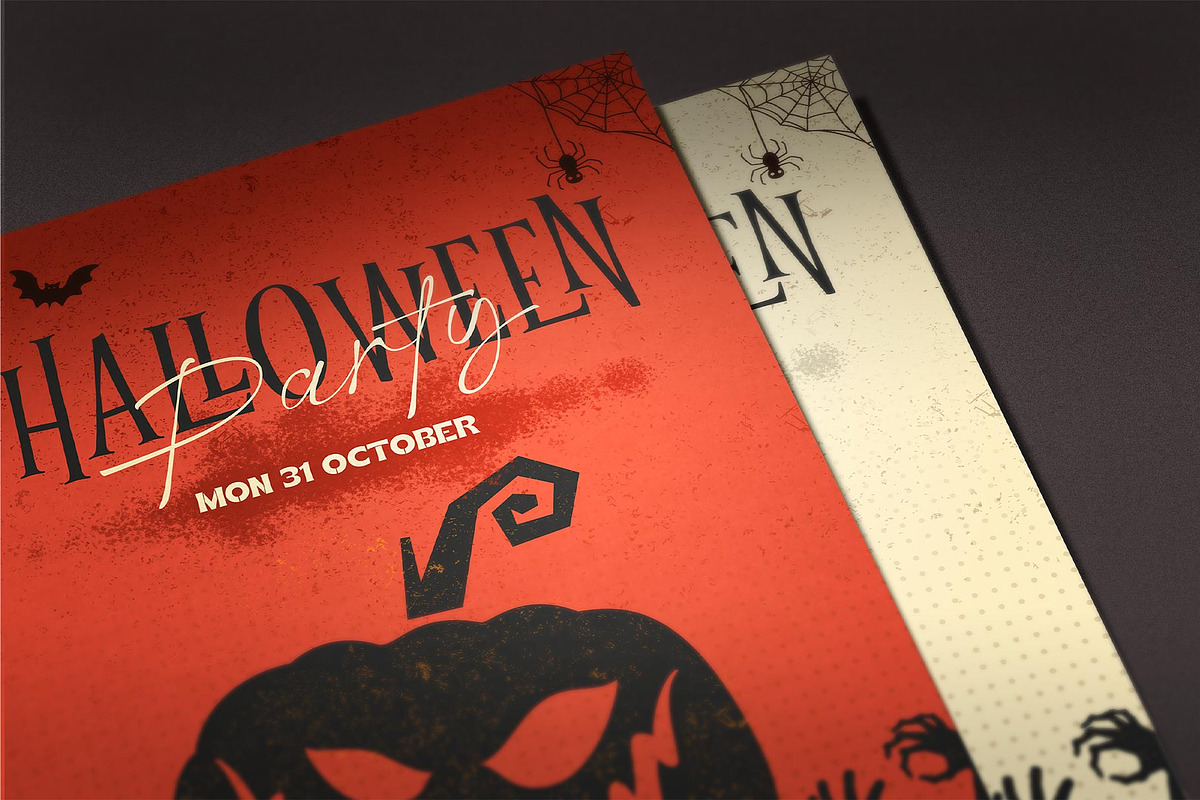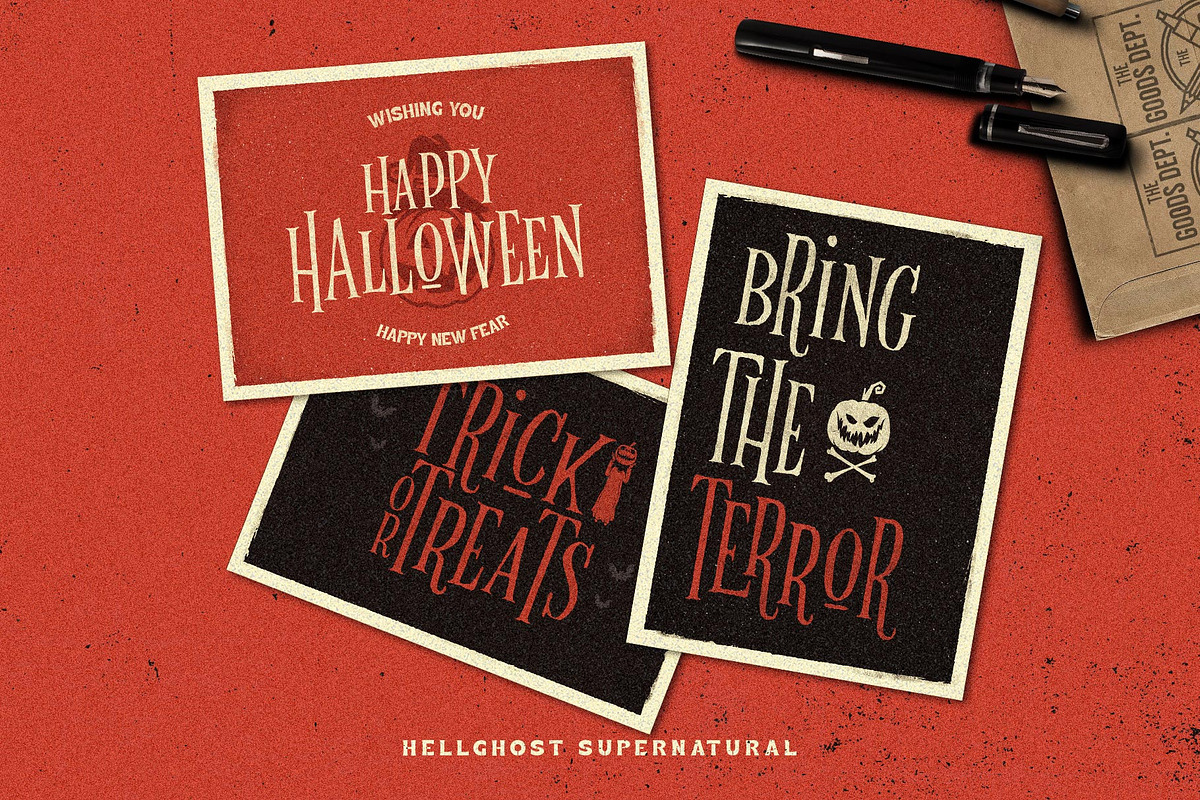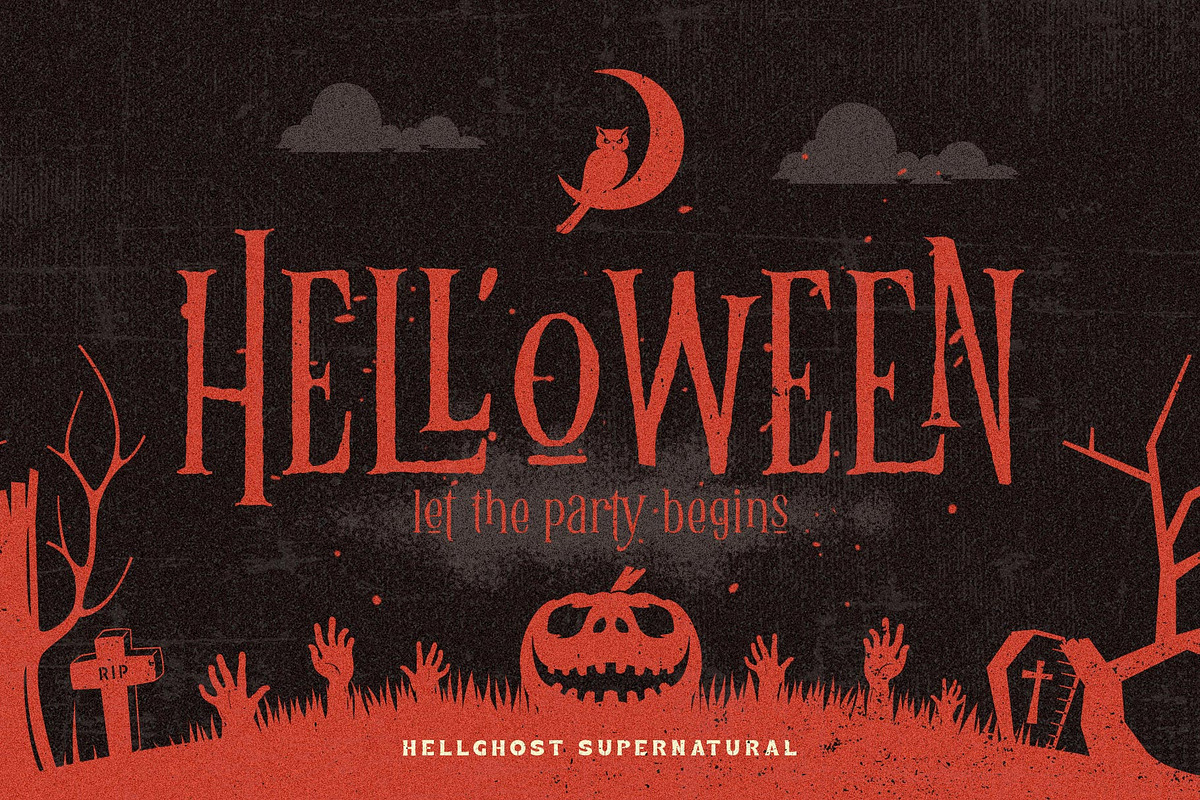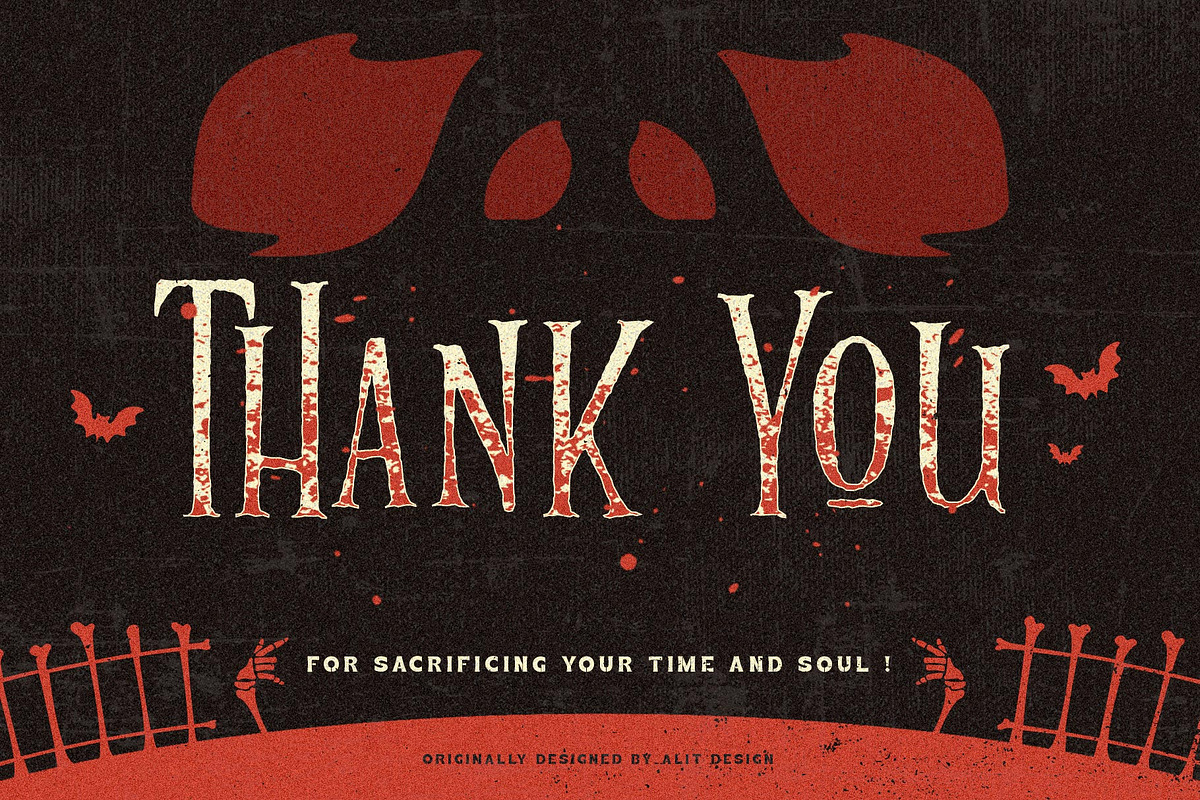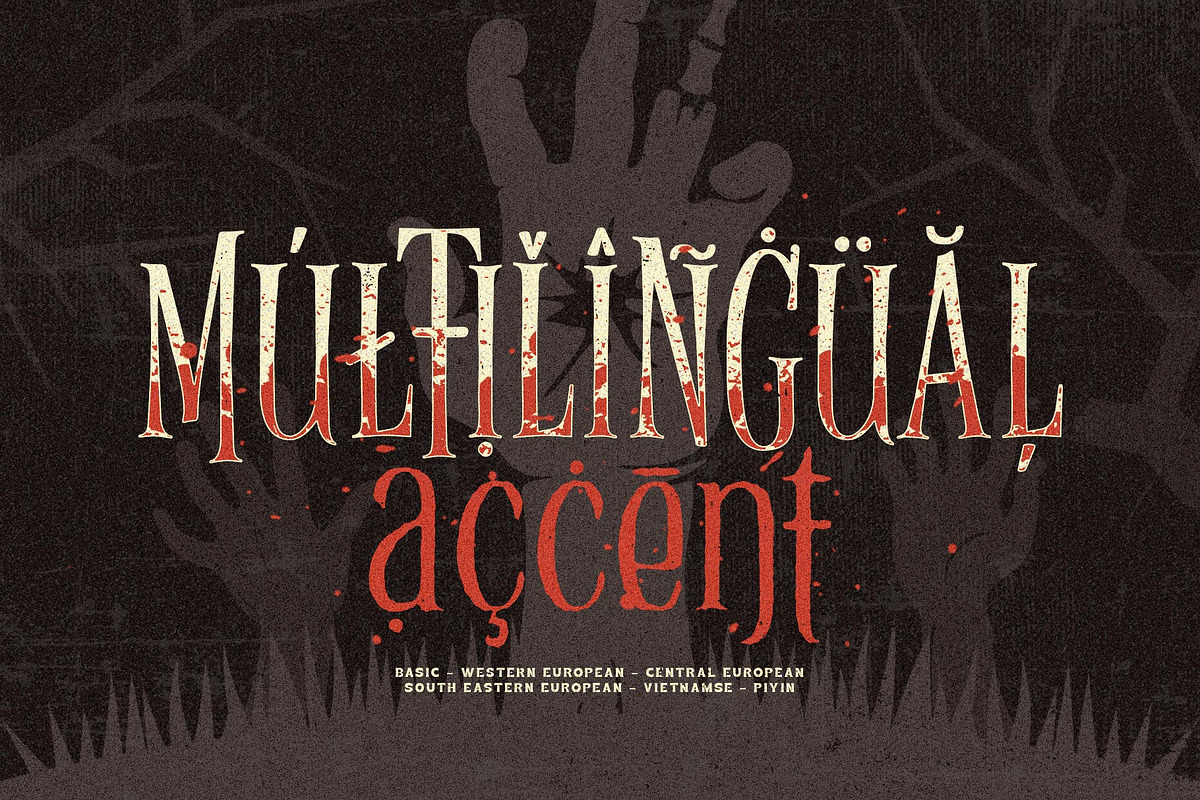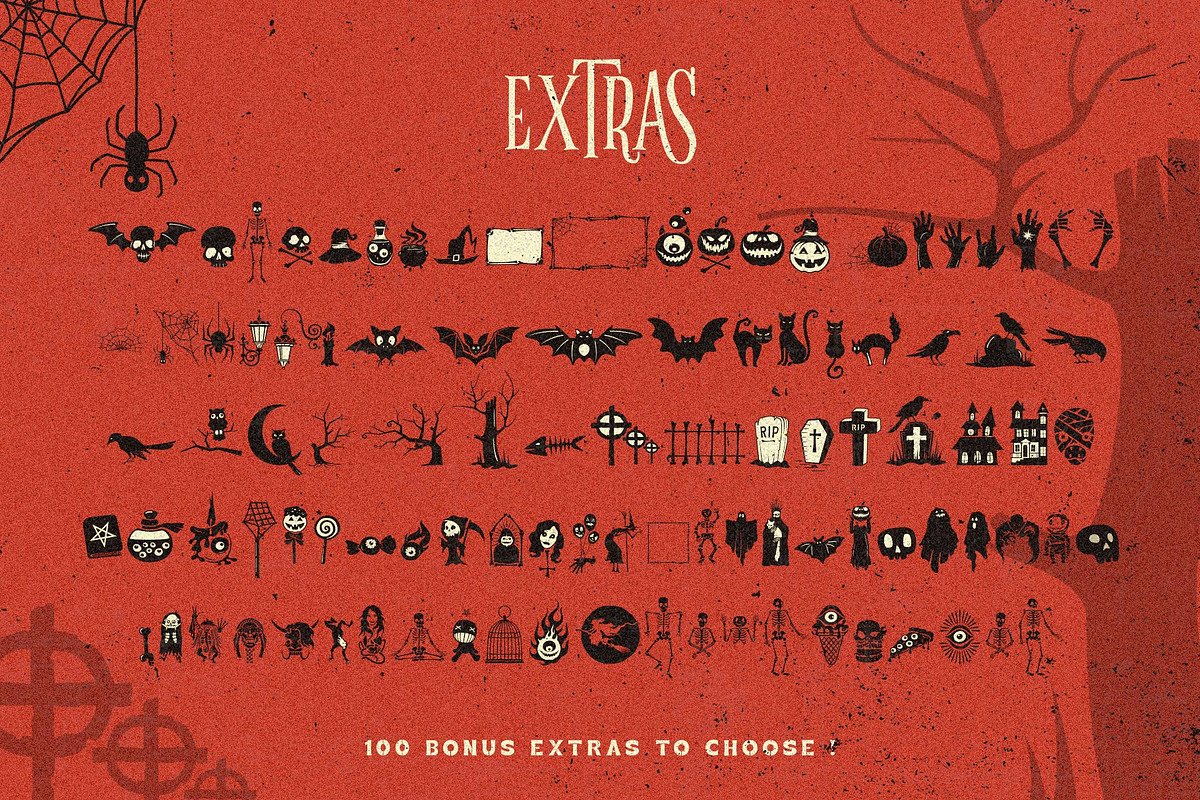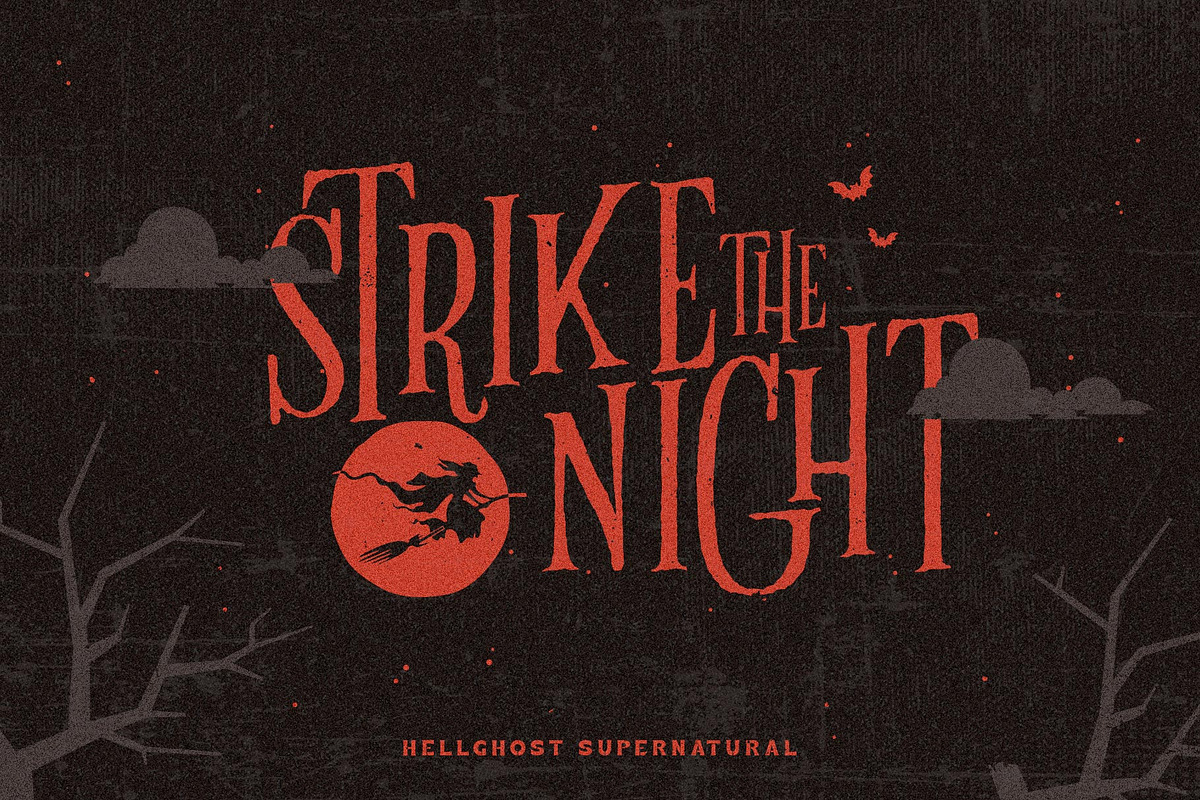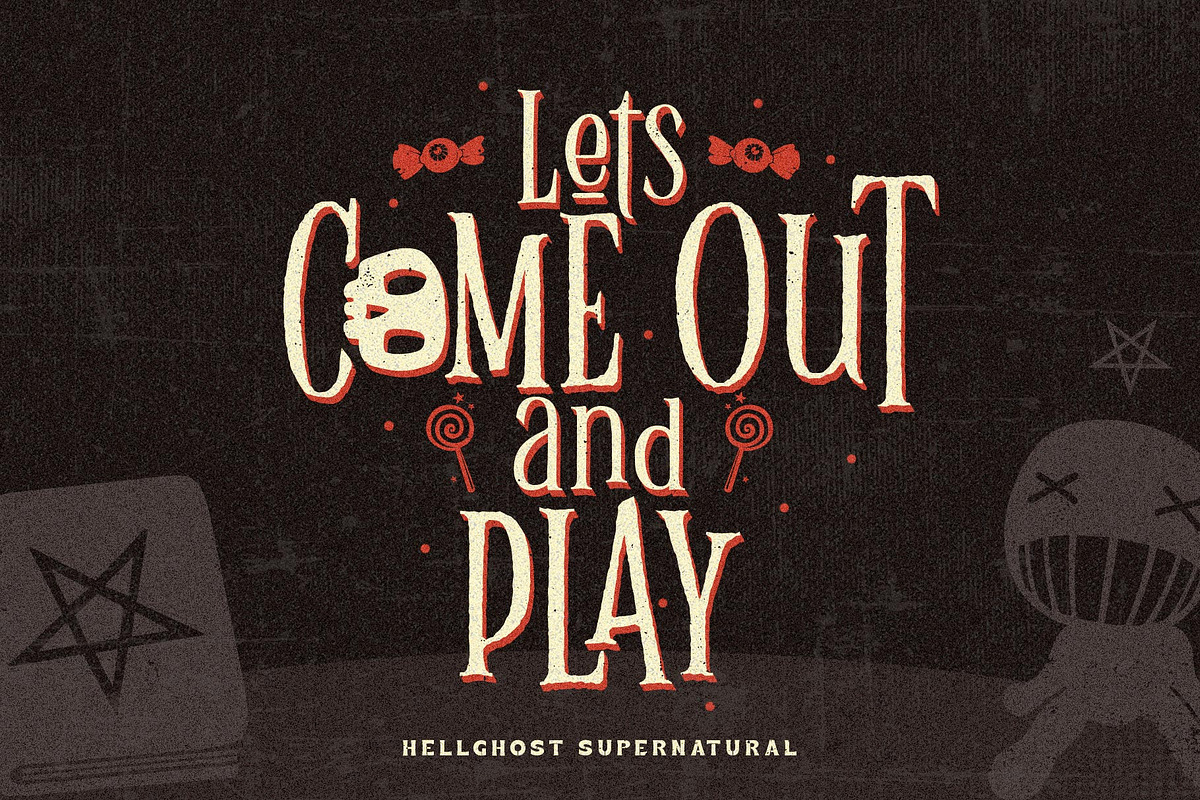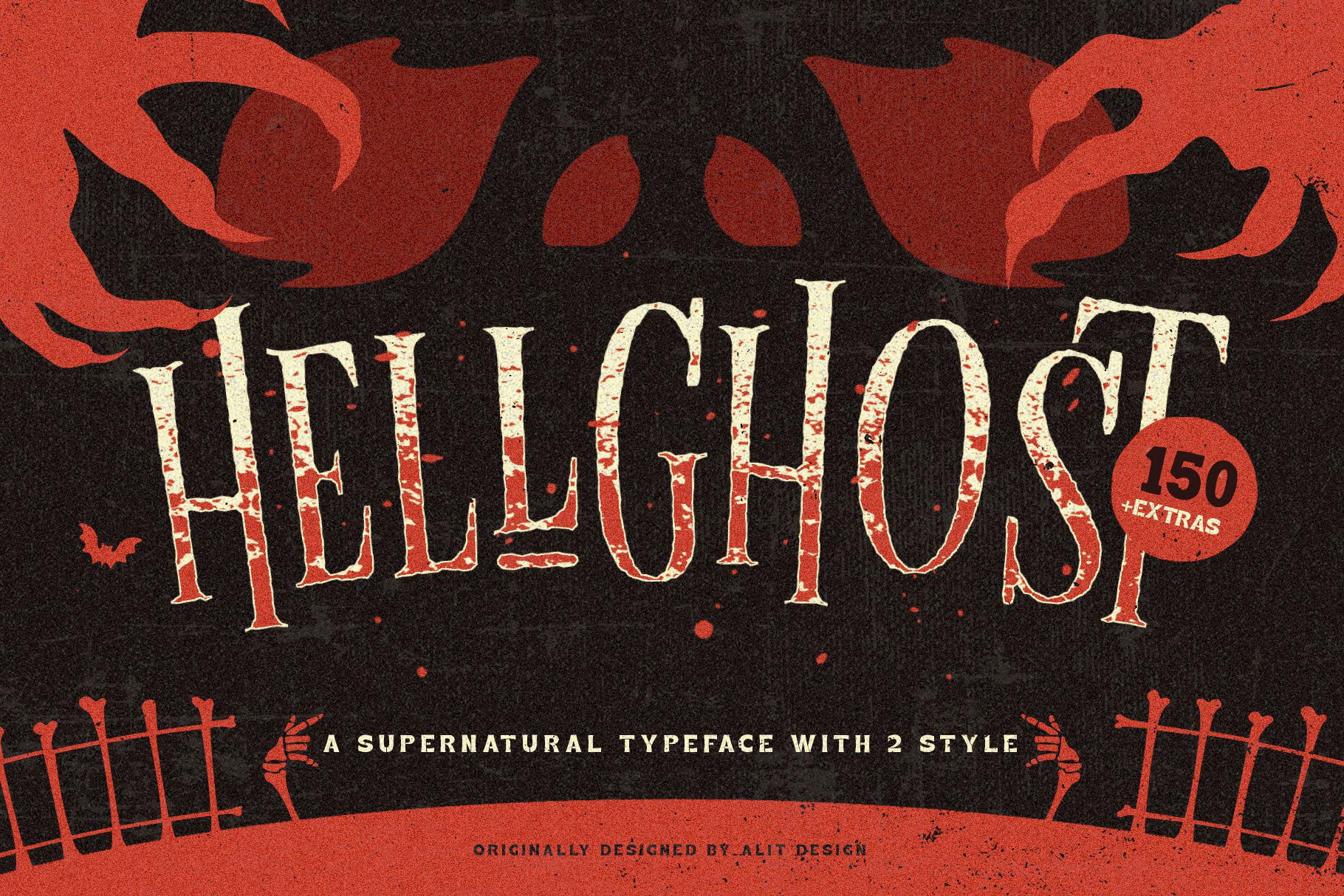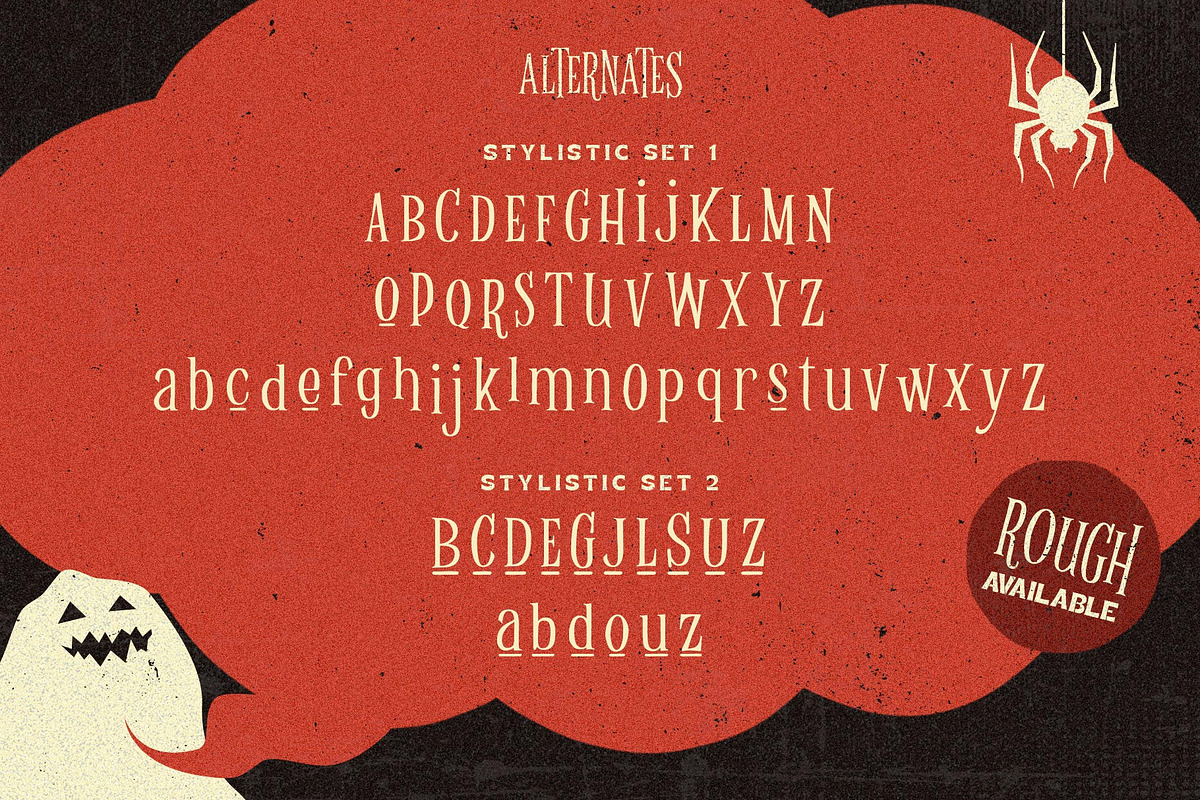
Hellghost Typeface
Presenting the 🎃 Hellghost Typeface 🦇 by alitdesign.
Hellghost typeface is designed for the needs of design concepts themed about Halloween and events in October and November. The Hellghost font uses a serif font style that varies by distorting its shape randomly but still looks good to look at and makes the designs it creates look bold and unique. In addition to the standard type, Helloghost also has a rough version which makes the design look more rusty and suitable for the Halloween concept.
The Helloghost font also gets a bonus character of 150 Halloween-themed illustrations that make creating designs even easier. Simply by downloading the Helloghost font, creating a Halloween themed design is very quick and easy.
The Hellghost Typeface is perfect for magazine cover designs, brochures, flyers. Instagram ads, Canva Design and so on with halloween and dark concepts. besides that this font is very easy to use both in design and non-design programs because everything changes and glyphs are supported by Unicode (PUA).
The Hellghost Typeface contains 623 + 150 bonus glyphs with many unique and interesting alternative options.
Language Support : Latin, Basic, Western European, Central European, South European,Vietnamese.